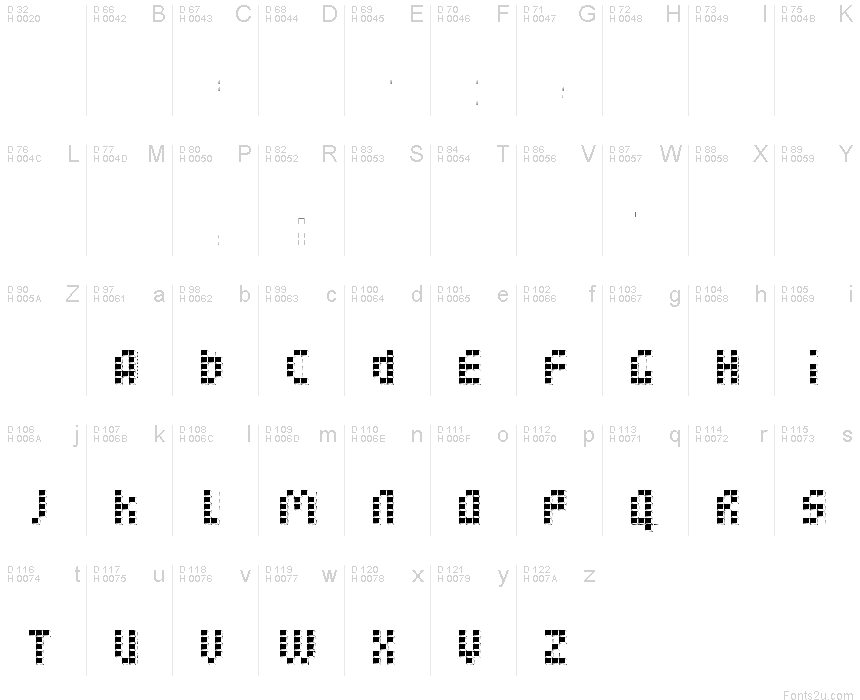
bleuck reversed
Bleuck Reversed by dker is a free Roman-inspired pixel display font with upright, squared proportions and a stark arcade-era finish. Offset dark facets give each form a deep mechanical shadow.
Retro game studios and technology brands could use it for title screens, product logos, packaging, and event posters with a deliberately early-digital look. Its mixture of classical capital shapes and hard electronic shading is especially apt for adventure games or music artwork that blends ancient-world themes with computer culture.
It uses a double grid for reverse reading. Available in two styles.